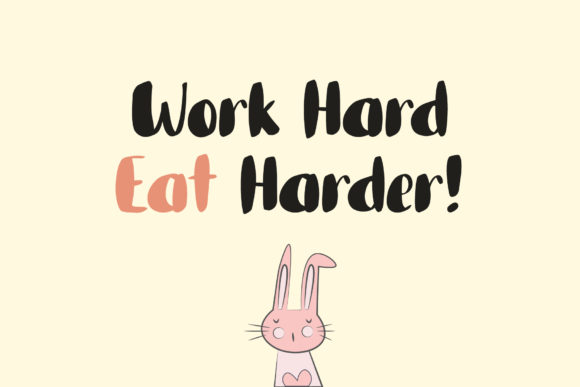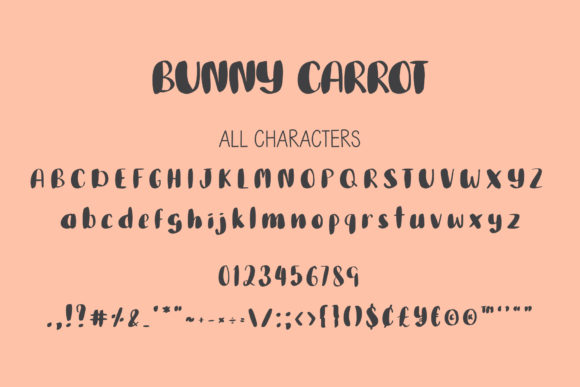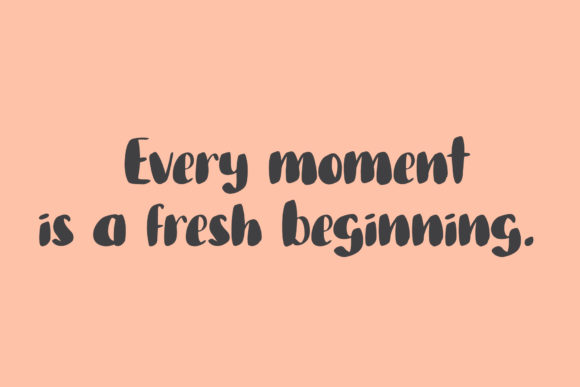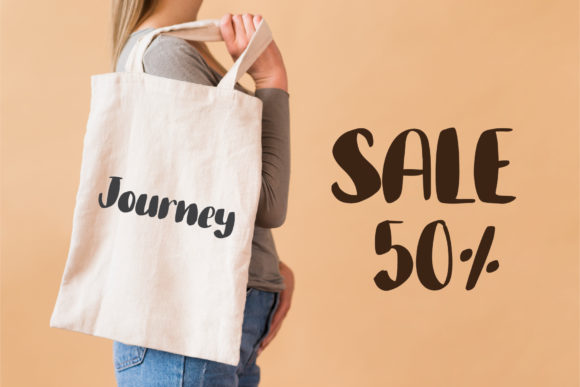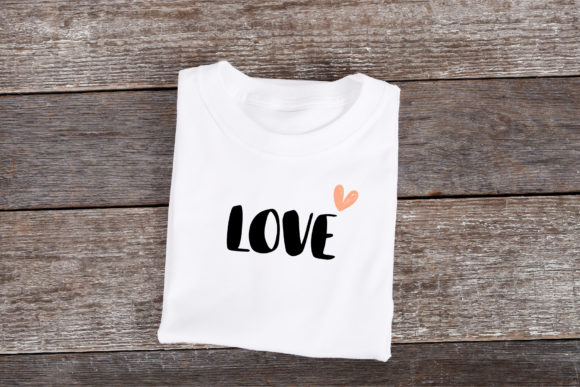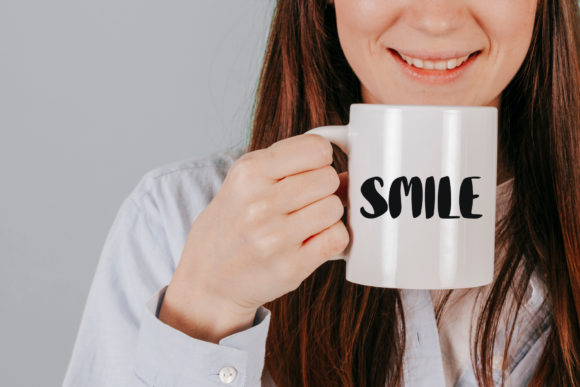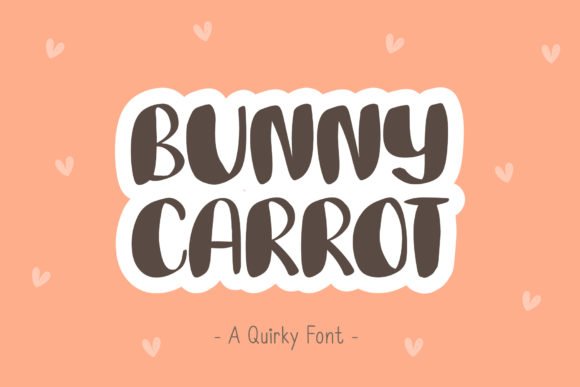
Get Ready to Sprout Some Creativity with Bunny Carrot Font
Have you ever stared at a blank page, trying to come up with the perfect design for a social media post or a greeting card? We’ve all been there. The pressure to create something unique and eye-catching can be overwhelming, but what if you had the perfect tool to help you break through that creative block? Introducing the Bunny Carrot Font, a friendly handwritten font that’s sure to bring a smile to your face and a touch of whimsy to your designs.
Bunny Carrot Font is designed to be playful and quirky, making it the perfect fit for a wide range of creative projects. Its unique style is not only visually appealing, but also incredibly versatile, allowing designers to experiment with different layouts and compositions. Whether you’re looking to add a personal touch to your social media posts or create eye-catching posters and cards, the Bunny Carrot Font is an invaluable asset for any designer.
Bunny Carrot Font Key Features
- Font Family: Bunny Carrot Font is a unique, hand-drawn font designed to resemble a cartoonish style.
- Character Count: The font contains a wide range of characters, including uppercase and lowercase letters, numbers, and punctuation marks.
- Unique Characteristics: The font features a playful, whimsical style with rounded edges and exaggerated lines, making it perfect for children’s books, cartoons, and other creative projects.
Bunny Carrot Font Review
I recently had the chance to work with the “Bunny Carrot Font”, and I must say it’s a unique and playful addition to any design project. ✨ The font’s whimsical feel is perfect for creating a lighthearted atmosphere, making it ideal for children’s books, nursery decorations, or even advertising campaigns targeting a younger audience.
Here are some of the things that stood out to me:
- ✨ The font’s irregular shape and varied line width add a sense of movement and energy.
- ✨ The character set is well-rounded, with a good selection of punctuation and special characters.
- ✨ The font is highly customizable, allowing for easy color and size adjustments.
- ⚠️ The font may not be suitable for formal or professional projects, as it can come across as too playful or childish.
- ⚠️ The font’s irregular shape can make it difficult to read at very small sizes.
- ⚠️ Some users may find the font’s whimsical feel distracting or overwhelming.
Overall, I think the “Bunny Carrot Font” is a fun and creative option for designers looking to add a touch of playfulness to their projects. Just be sure to use it judiciously and consider the context in which it will be used.
For best results, use the Bunny Carrot Font for titles and headings to add a playful touch to your designs.
Use the Bunny Carrot Font for creative projects that require a whimsical touch, such as illustrations and graphics.
Use the Bunny Carrot Font to add a playful touch to presentations and documents.
For best results, use the Bunny Carrot Font in moderation and pair it with other fonts to avoid overwhelming your design.
Use the Bunny Carrot Font to add a touch of whimsy and fun to your designs.
The Bunny Carrot Font is perfect for:
- Children’s books and educational materials.